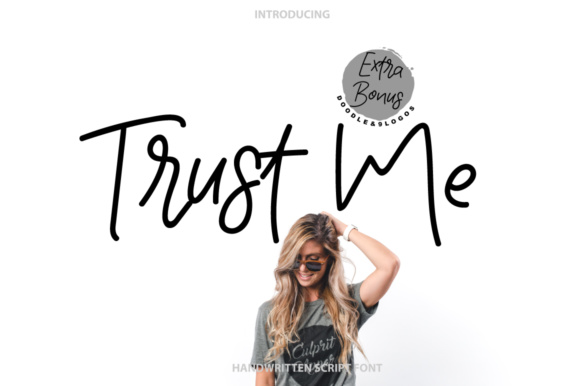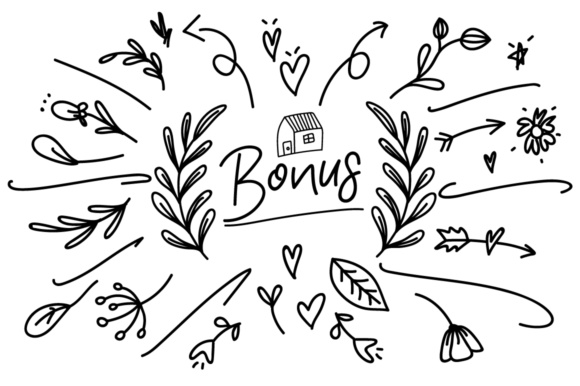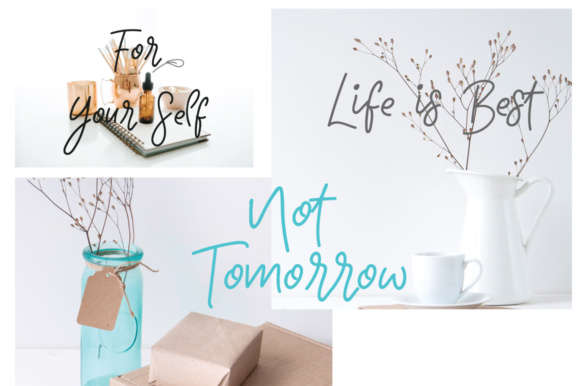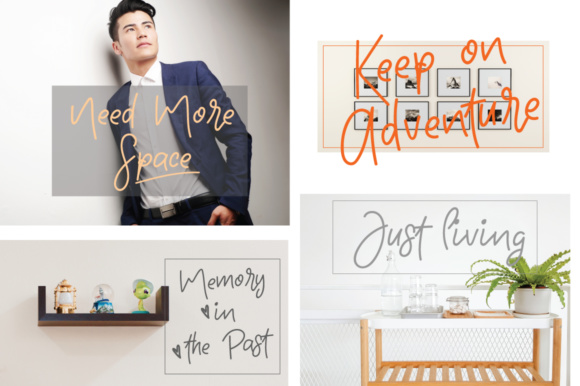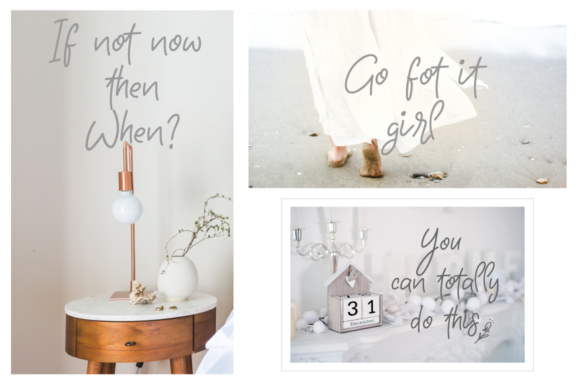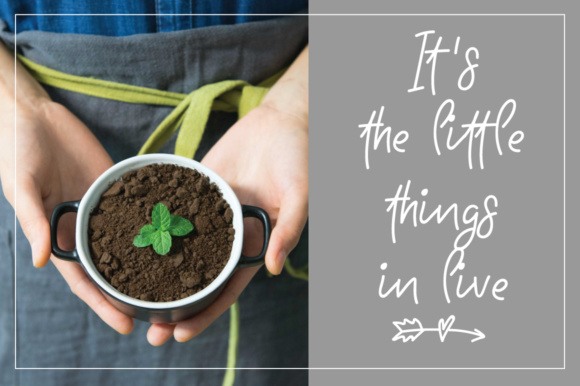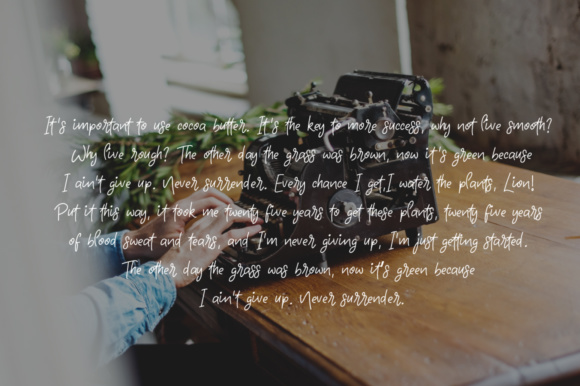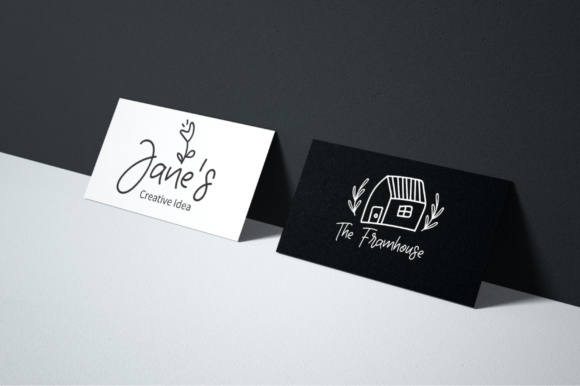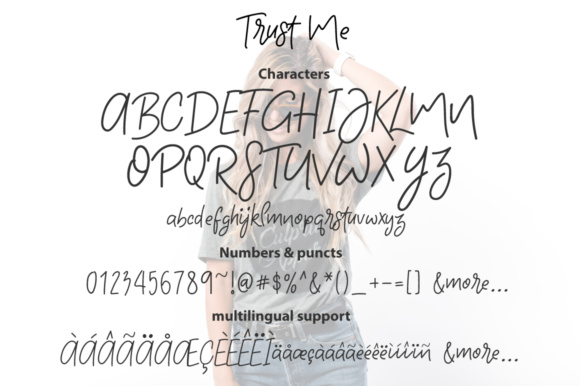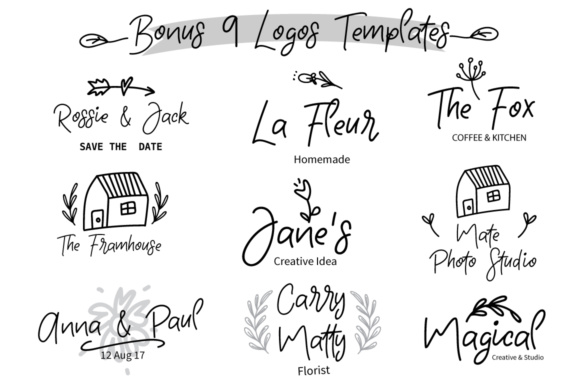
Trust Me Font
About Trust Me Font
Trust me is a signature font with a multitude of letter variations to make that perfect and unique design. It’s perfect for wedding invitations ,blogs, logos or just for a beautiful frame in your home.